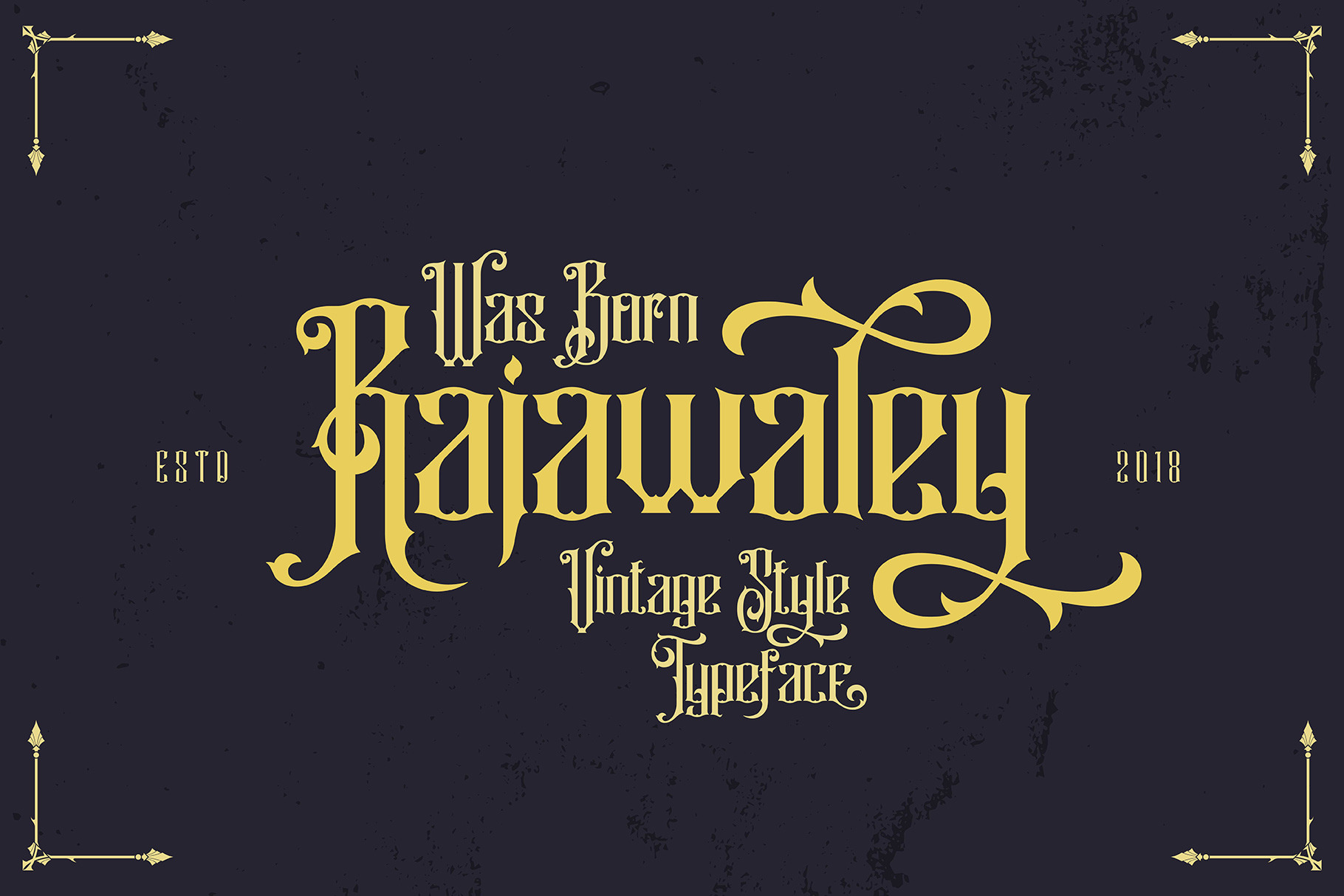
Rajawaley Typeface
Hello friend, let me introduce my product Rajawaley Typeface
Rajawaley have 2 Style Regular and Shadow with vintage classic character inspired from beer and brewery. You can mix and match the layered font and Extras Ornament, its very helpfull to get Vintage design. Suitable and applicable to create vintage design, branding, logos, product packaging, invitation, qoutes, t-shirt, label poster etc.
Lowercase
Punctuation and Number
Multilingual Language
Alternate Character & Ligature